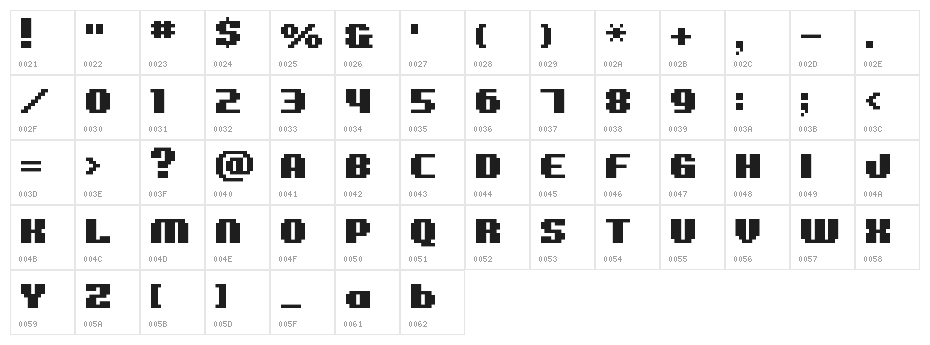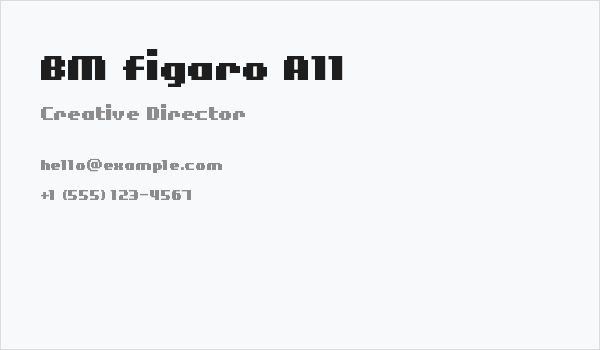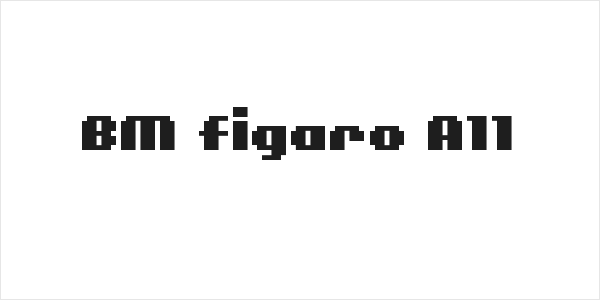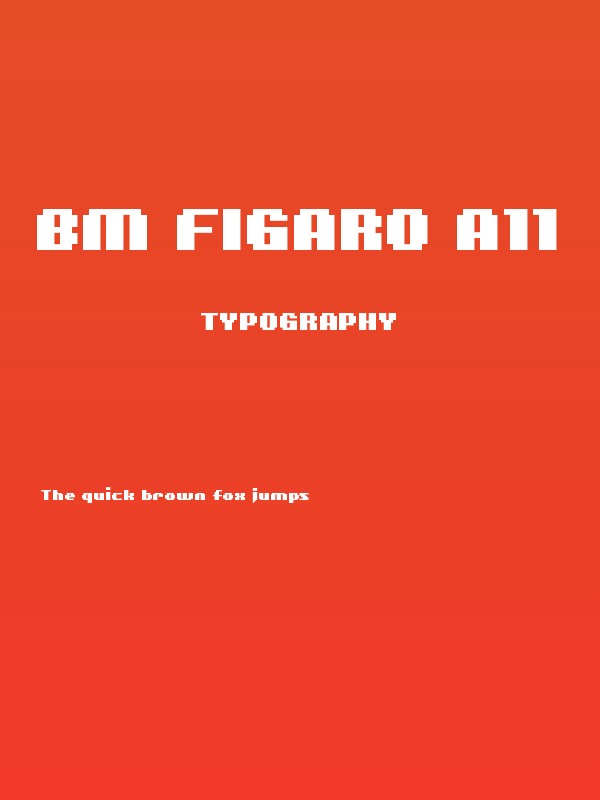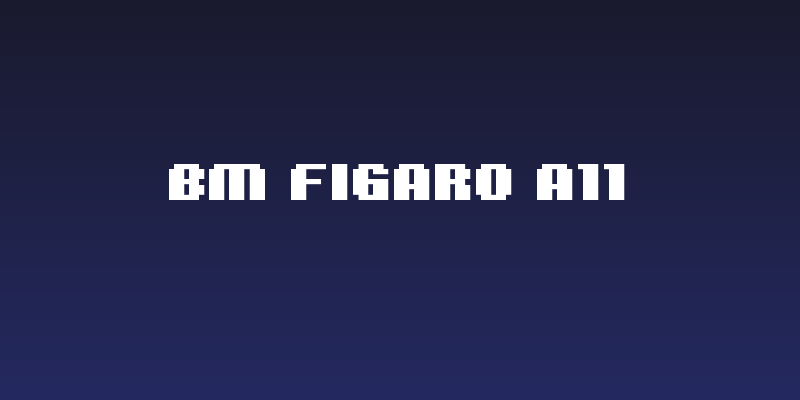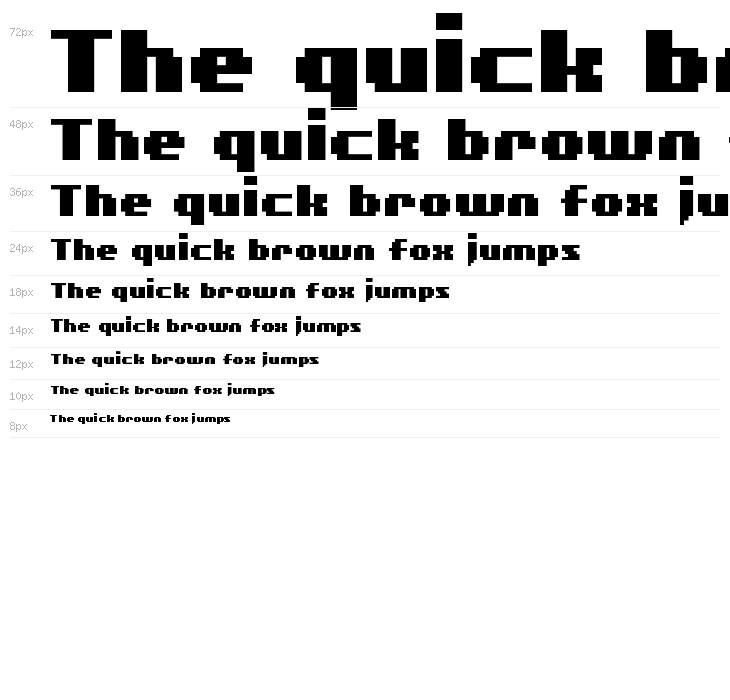
BM figaro A11 Font
BM figaro A11 Description
This font features a bold and blocky design with a pixelated aesthetic reminiscent of early digital displays or retro video games. Each character is constructed with uniform, square-like shapes, giving it a distinctly geometric and modular appearance. The uppercase and lowercase letters maintain a consistent height, enhancing the font's uniformity. Numbers and special characters follow the same blocky style, ensuring visual coherence across all glyphs. The font's design is straightforward and impactful, making it suitable for projects that require a nostalgic or tech-inspired look.
| Overall Style | Retro, Digital |
| Proposed Projects | Ideal for video game design, retro-themed posters, digital art, and tech-related branding. |